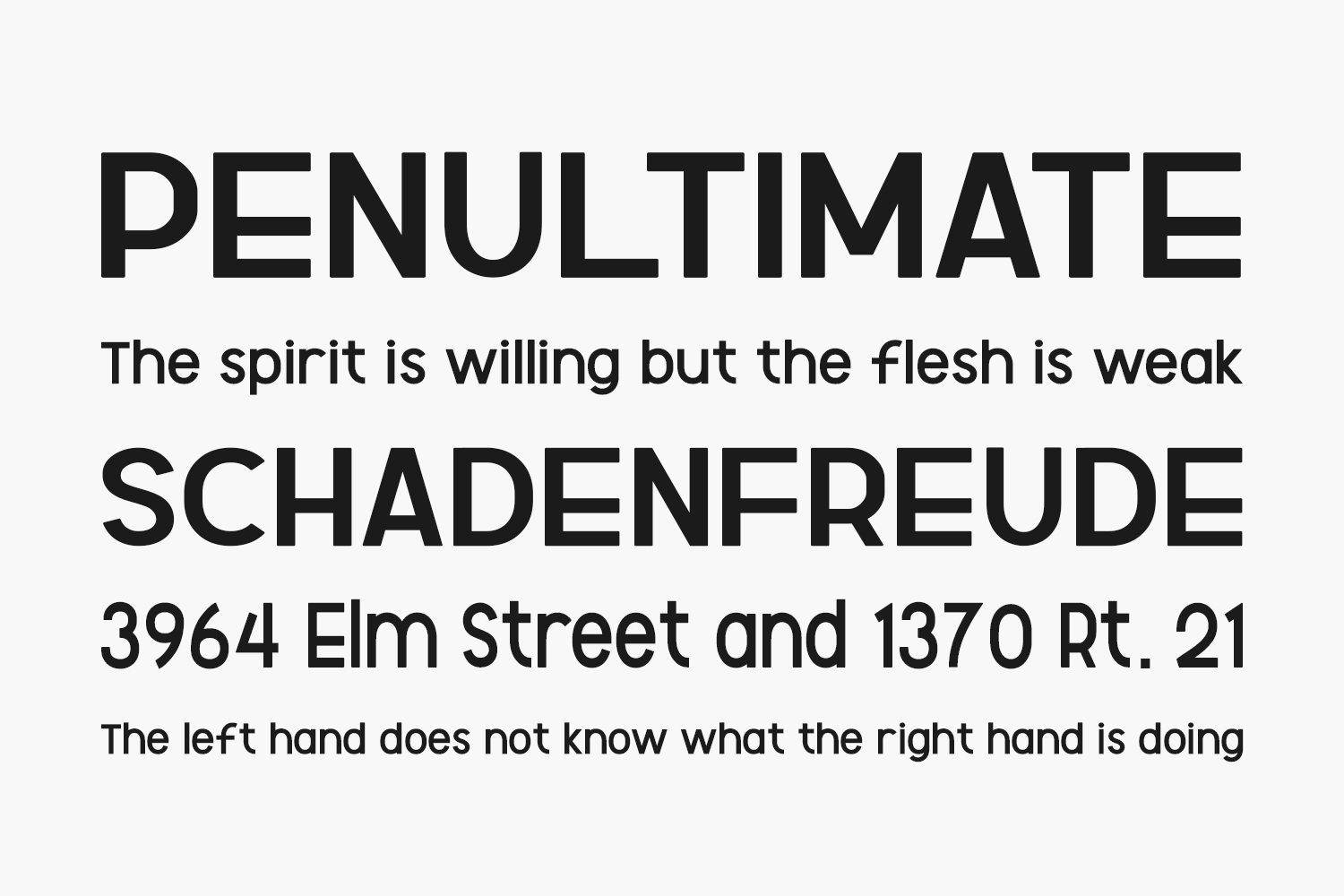
Monolog Free Font is a clean, simple, elegant san serif font. great for any purpose such as logo brand, banners, youtube thumbnails, etc. This version is for personal use only. If you want to get the full version with a commercial license you can buy it here.
Designed by Sandylukee